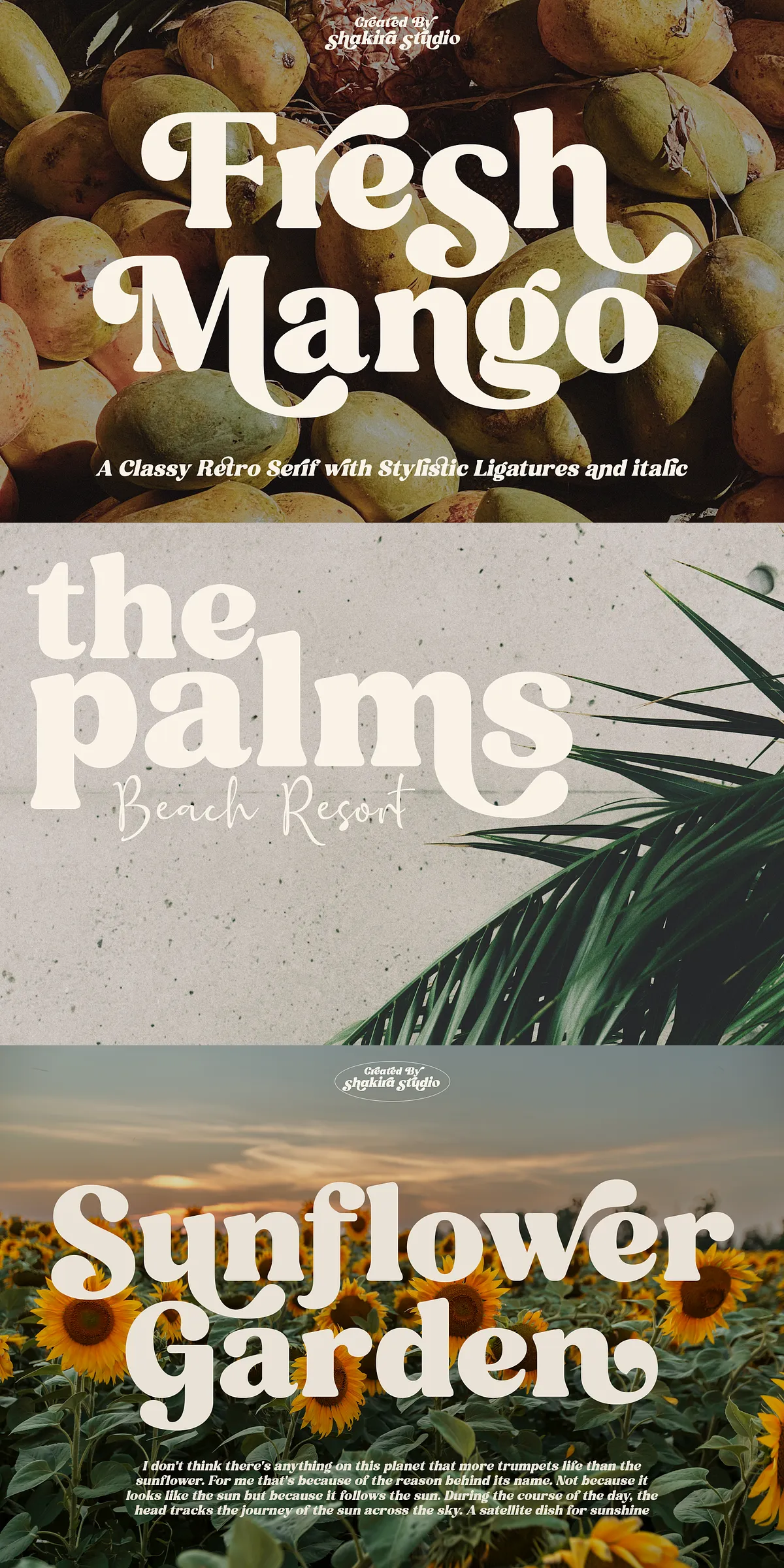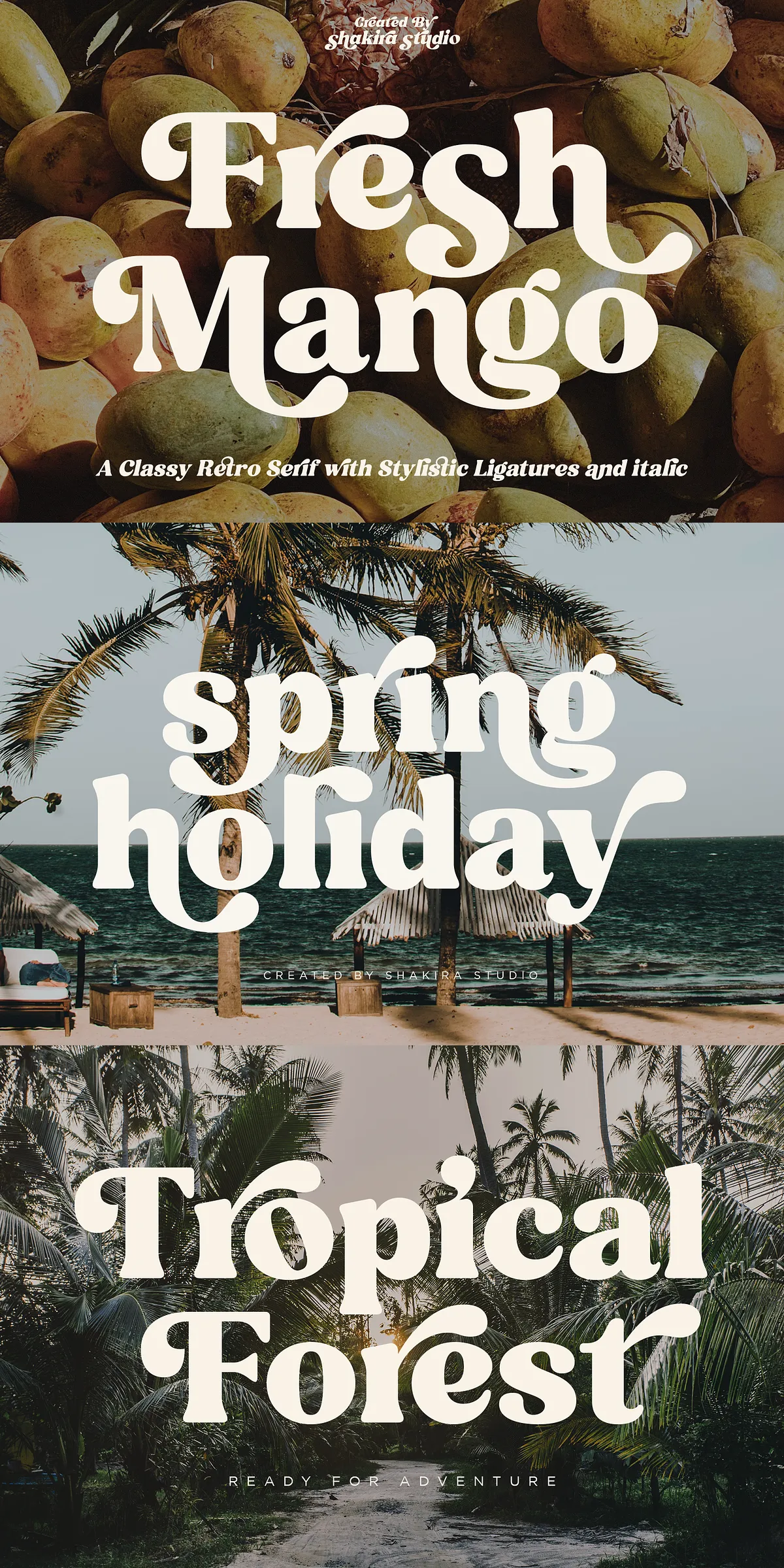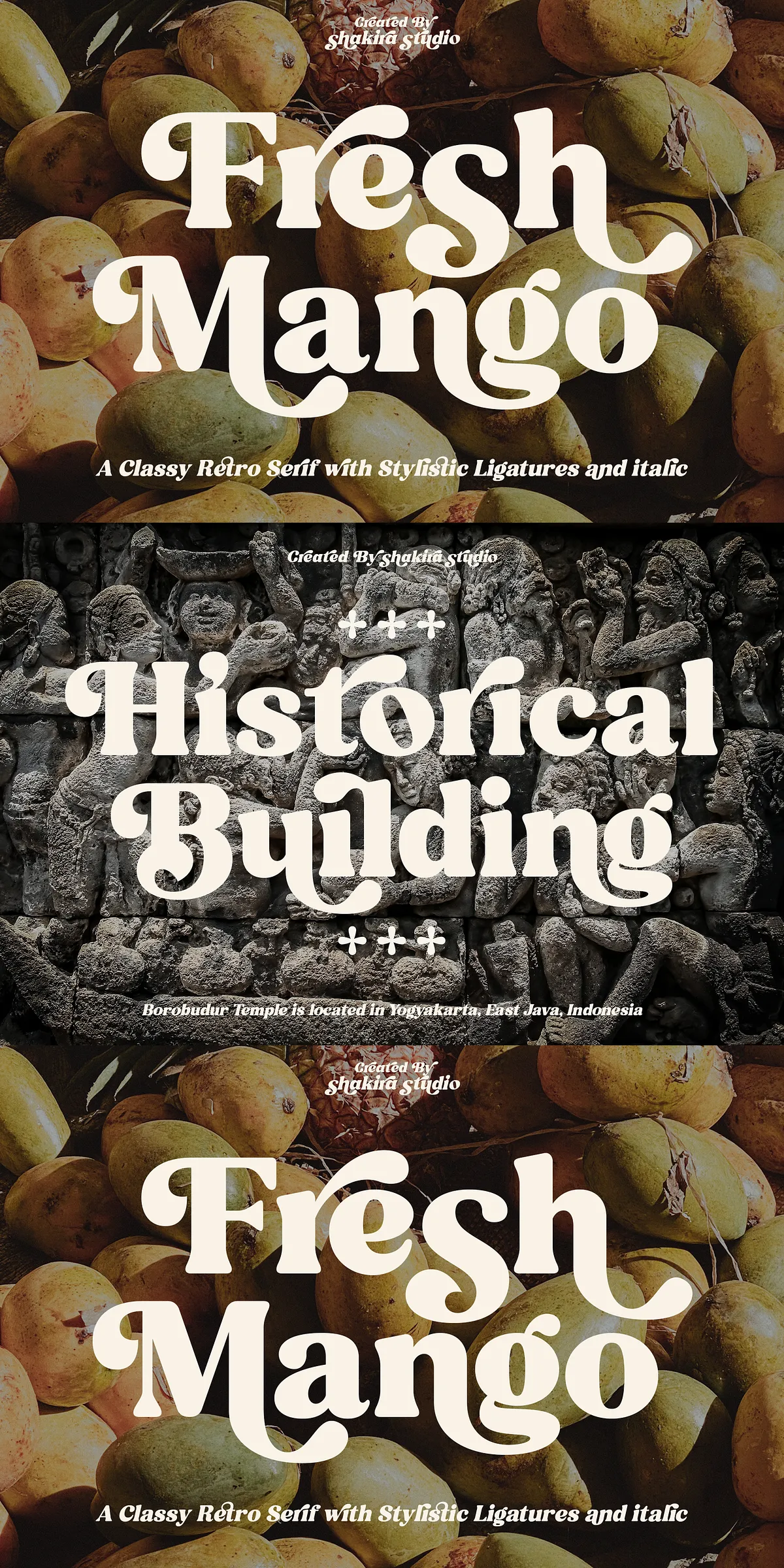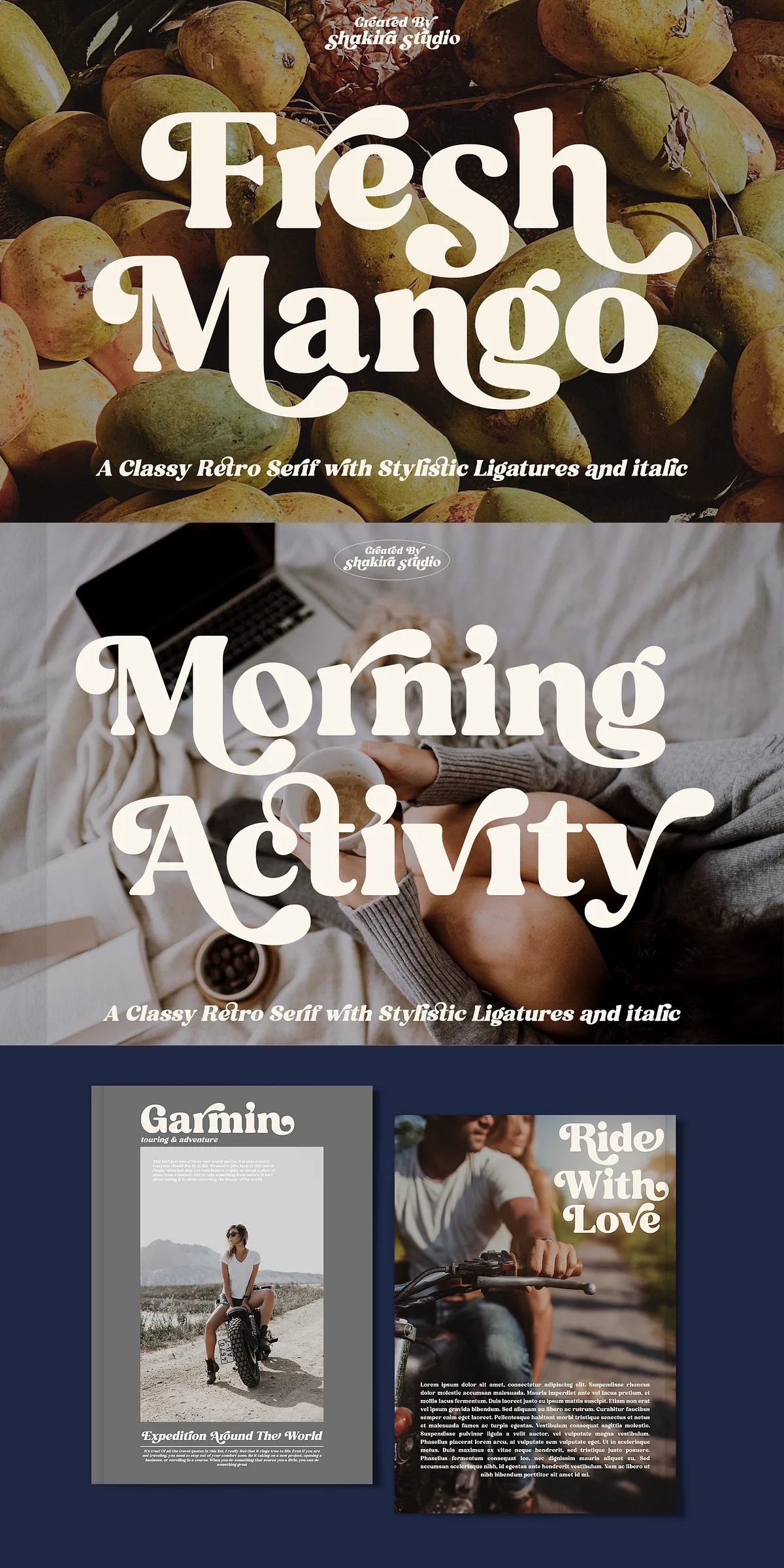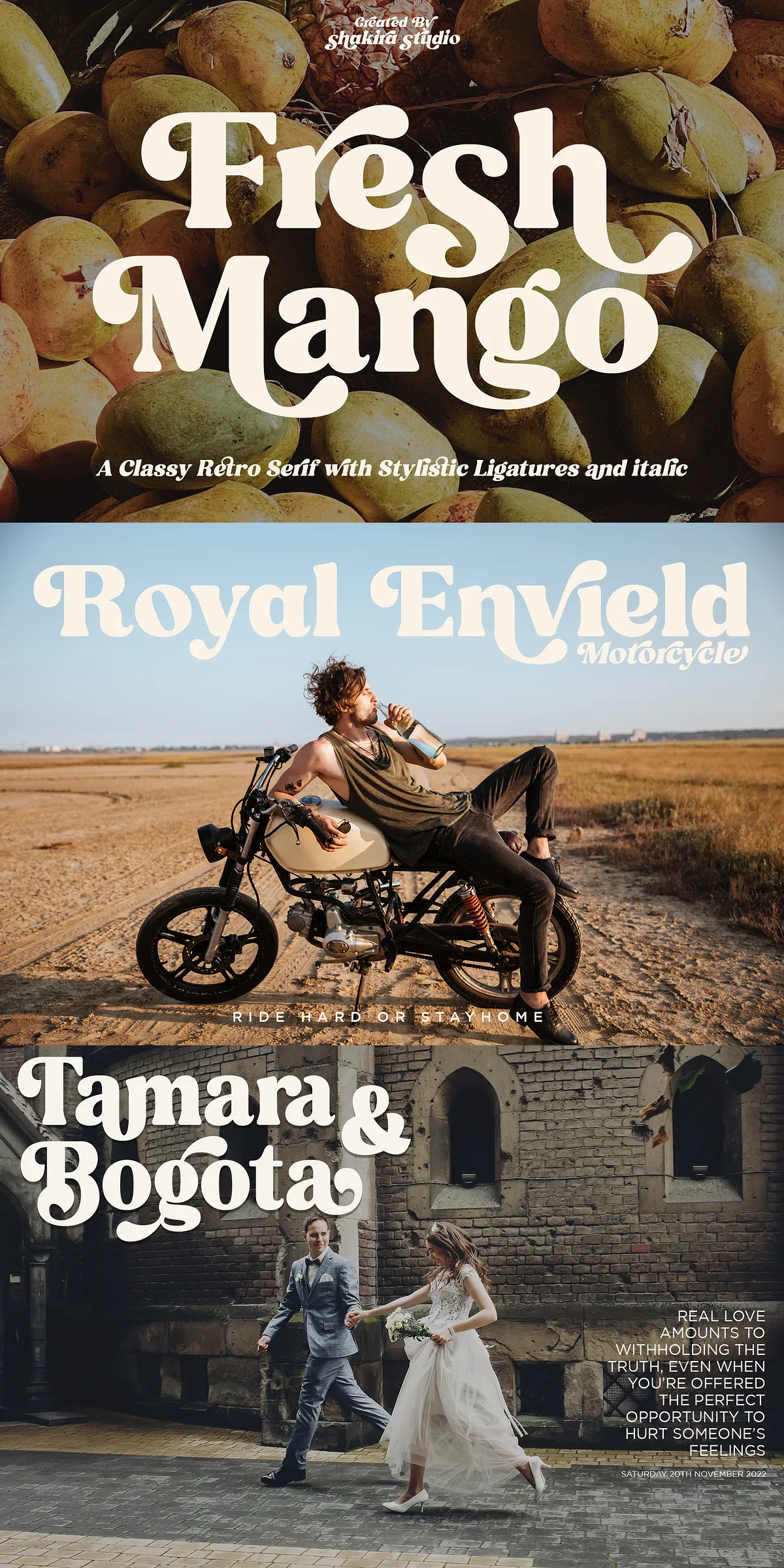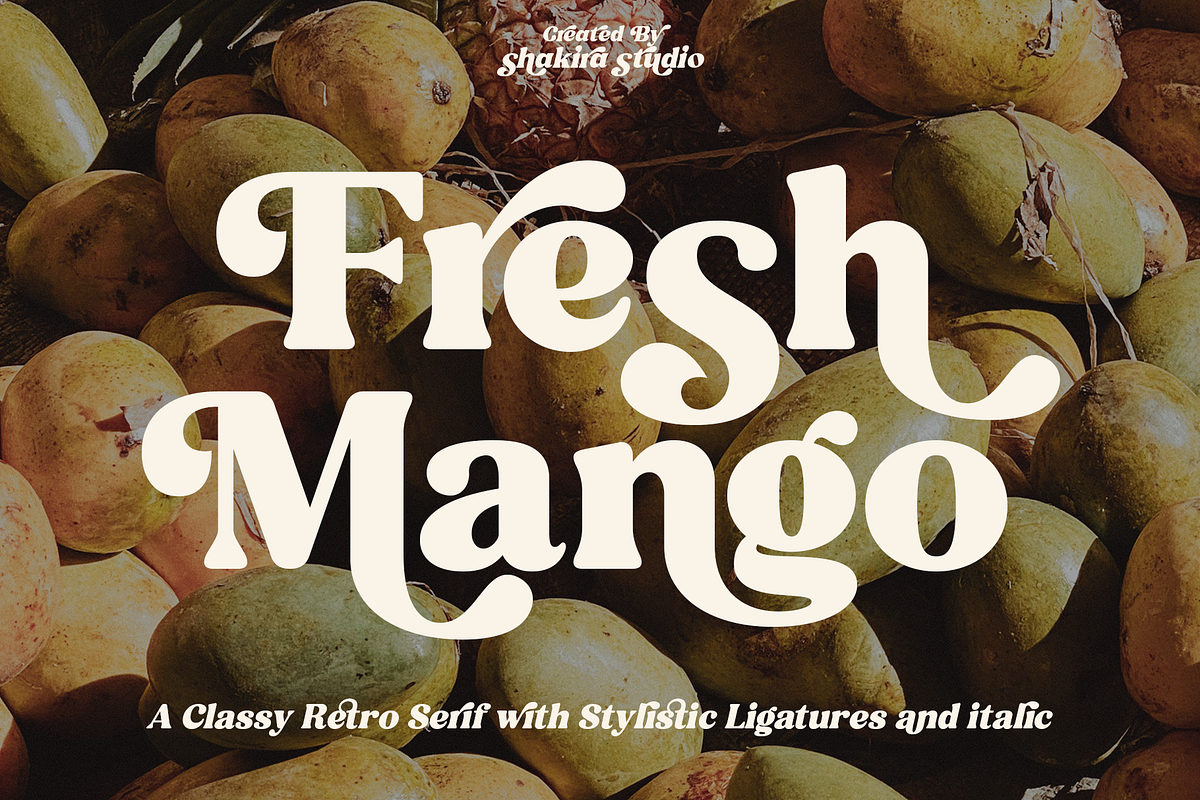
Fresh Mango brings a retro serif voice that commands attention while remaining highly usable across projects. Its high-contrast strokes and curved terminals create a sleek, elegant appearance that reads strongly at display sizes and preserves clarity in longer lines. Use Fresh Mango when you need to make headlines sing, craft distinctive logos, or lend a refined vintage flair to wedding invitations, holiday cards, packaging, advertisements, and editorial layouts.
Distinctive Letterforms And Purposeful Design Choices
George’s contrasting lines and curved terminals give Fresh Mango a vivid silhouette that balances nostalgia and modern legibility. The design emphasizes clear counters and purposeful serifs so letters maintain presence at large sizes and still perform in tighter settings. Fresh Mango’s italic variant introduces dynamic movement, letting you pair upright and slanted forms for hierarchy and emphasis without sacrificing cohesion.
Complete Technical Package For Designers And Developers
OpenType Features And PUA Accessibility
Fresh Mango includes OpenType features such as ligatures and alternates that let you refine word shapes and display styles. PUA encoding ensures special characters and stylistic glyphs can be accessed even in applications that lack advanced glyph panels. For full OpenType control — alternates, discretionary ligatures, and contextual substitutions — use apps with OpenType support; otherwise, PUA-encoded glyphs remain a reliable fallback.
Multilingual Support And Broad Application Compatibility
Fresh Mango supports an extensive selection of Latin-based languages. The multilingual character set includes accented characters required for Afrikaans, Albanian, Catalan, Croatian, Czech, Danish, Dutch, English, Estonian, Finnish, French, German, Hungarian, Icelandic, Italian, Lithuanian, Maltese, Norwegian, Polish, Portuguese, Slovenian, Spanish, Swedish, Turkish, and Zulu. This broad coverage makes Fresh Mango ideal for global brands and publications.
Practical Tips For Fast Visual Impact
Start headlines with Fresh Mango at larger sizes to reveal its contrast and terminals. Use italics for emphasis and to create movement in editorial spreads. Apply subtle tracking adjustments for logotypes or packaging to balance letterforms when using alternates. When delivering final web assets, consider exporting typographically rich headlines as SVG or high-resolution PNG if the target platform strips advanced OpenType features.